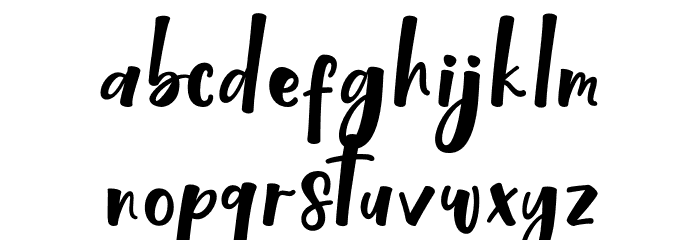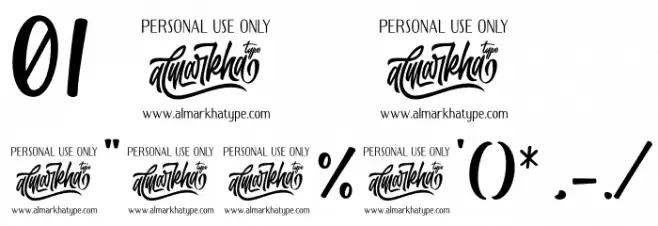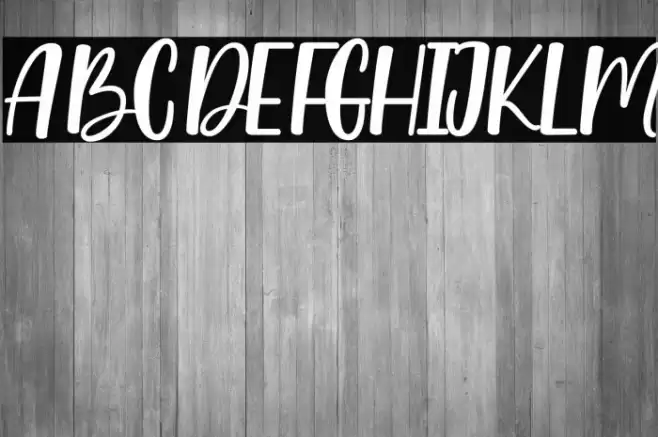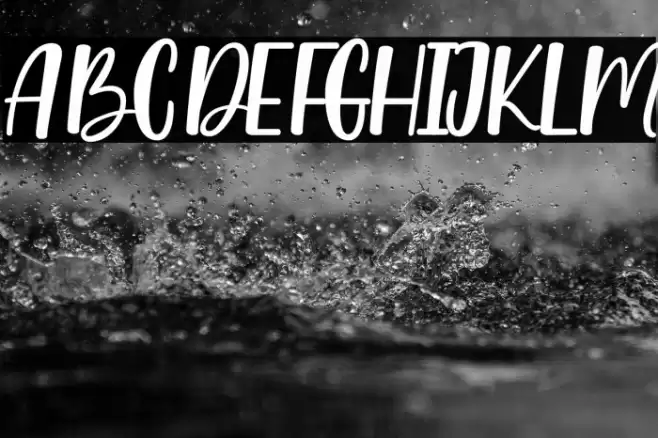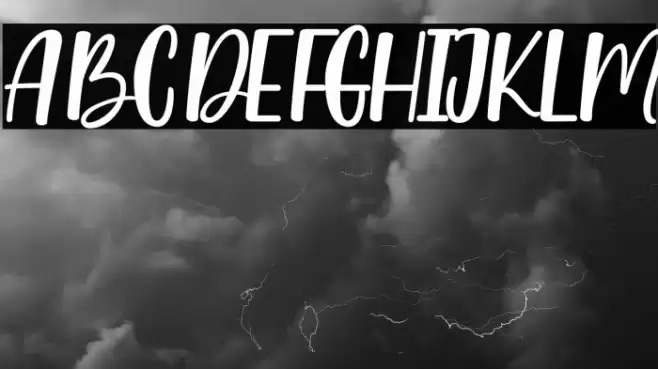
Lovely Sweetie Font
This font features a playful and expressive handwritten style, characterized by its fluid and dynamic strokes. The uppercase letters are bold and slightly slanted, giving a sense of movement and energy. The lowercase letters maintain a consistent style, with some characters featuring unique loops and curves that add to the font's charm. The numbers and special characters are designed to match the overall aesthetic, ensuring a cohesive look across all text. This font is ideal for projects that require a personal and friendly touch, such as invitations, greeting cards, and branding materials.
A playful and expressive handwritten font with fluid strokes.
- Font: Lovely Sweetie
- Proposed Projects: Ideal for invitations, greeting cards, branding, and personal projects.
- Category: Handwritten
- Use Case: Logos, Headlines, Invitations